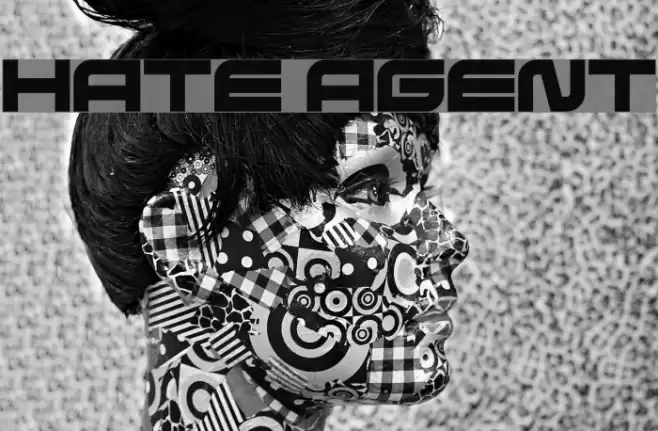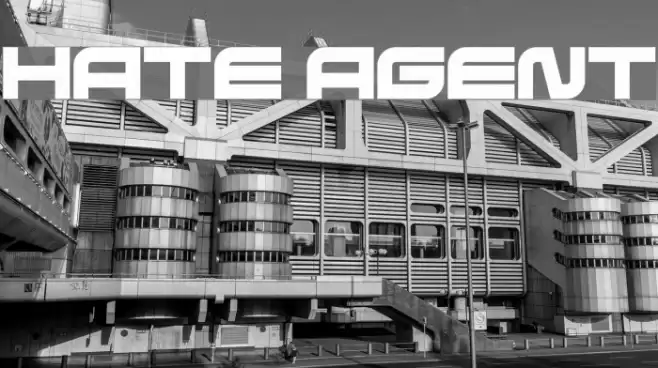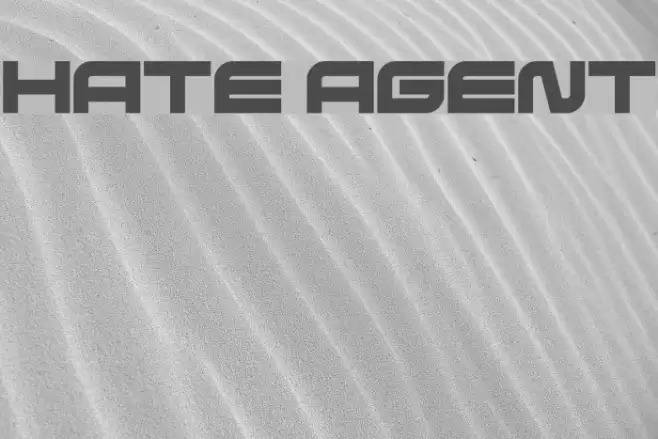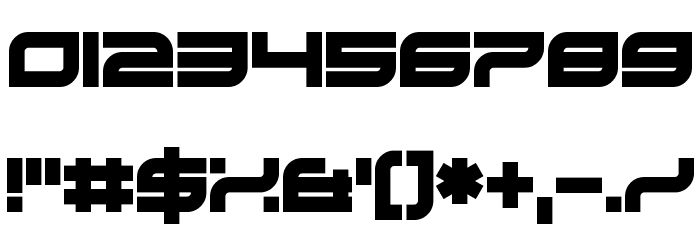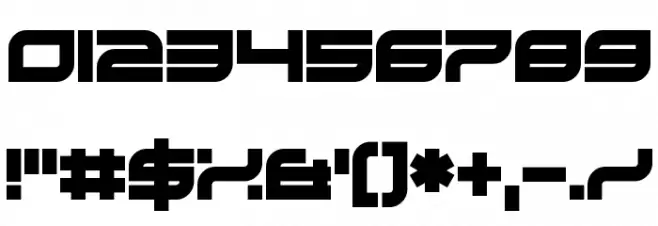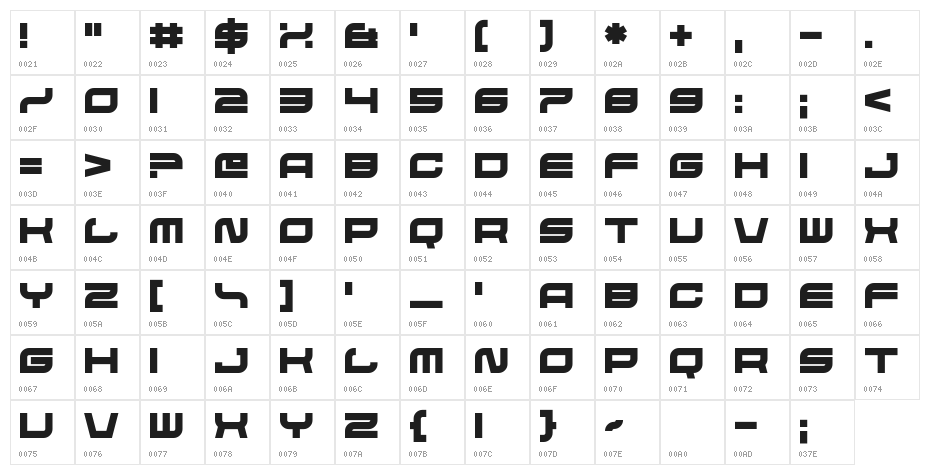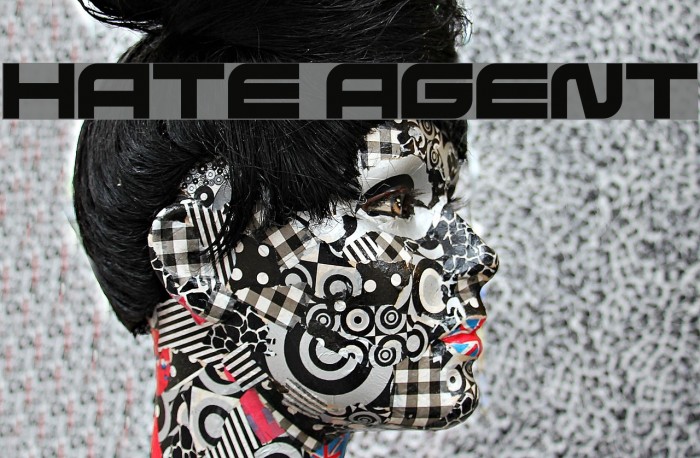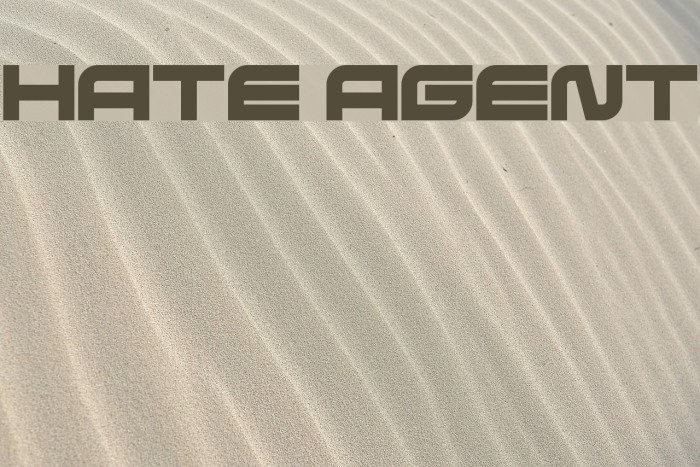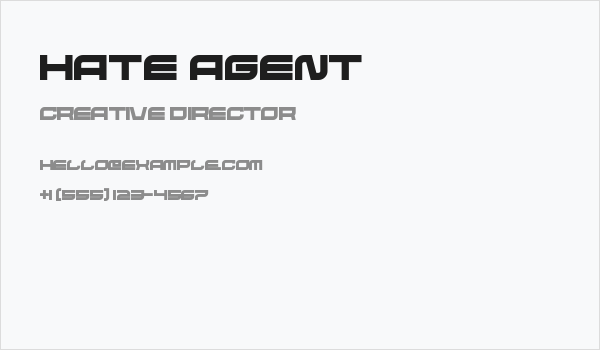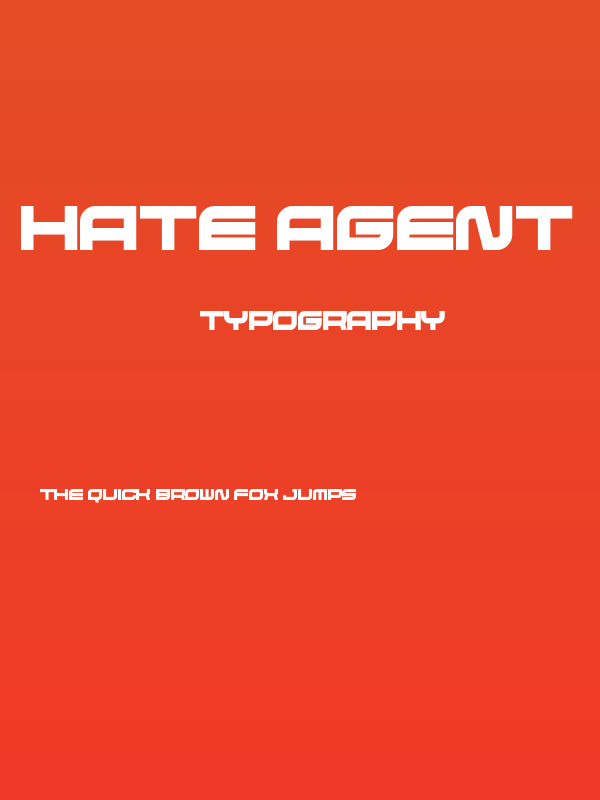
Hate Agent Font
Hate Agent Description
This font features a bold, futuristic design with a strong geometric structure. The characters are constructed with sharp angles and straight lines, giving it a distinctly modern and tech-inspired appearance. The uppercase and lowercase letters maintain a consistent style, with a uniform height that enhances its sleek look. The numerals and special characters follow the same design principles, ensuring a cohesive visual identity. The font's boldness and unique style make it stand out, ideal for projects that require a modern and impactful aesthetic.
A bold, futuristic font with geometric and tech-inspired design from Uncategorized fonts.
- Proposed Projects: Ideal for technology branding, sci-fi posters, video game titles, and modern advertising campaigns.